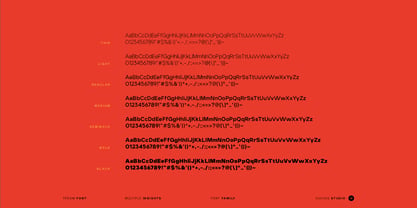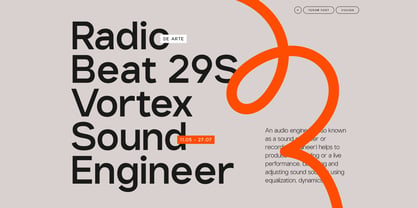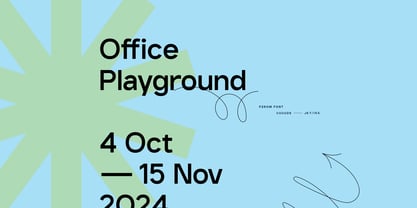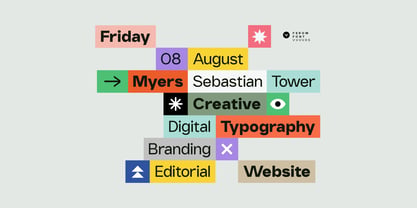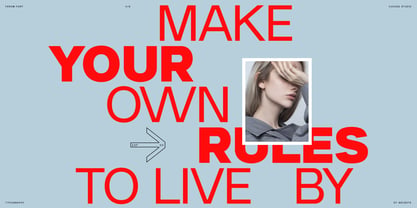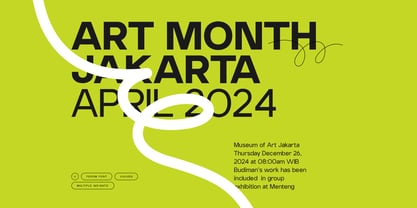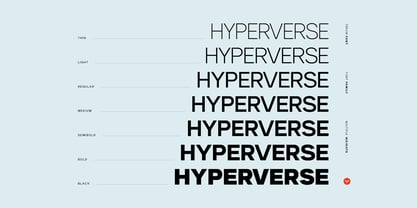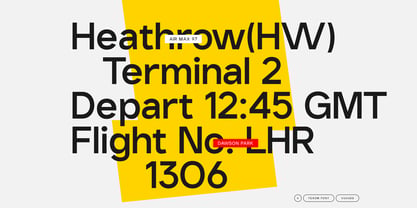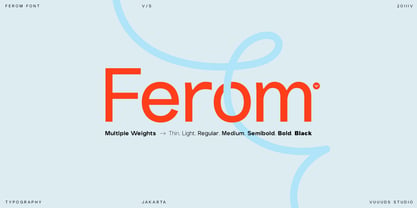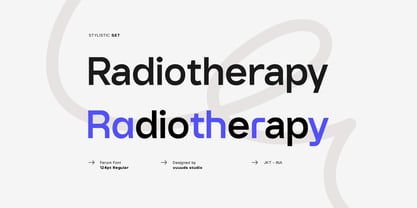
Ferom
by vuuuds
The Ferom Font Family was designed by Agung Syaifudin and published by vuuuds. Ferom contains 7 styles and family package options. More about this family
Looking for that one "workhorse" font that looks flawless anywhere? Ferom is your new go-to. It is a contemporary sans serif that masterfully balances clean geometric lines with a warm, modern aesthetic.
Boasting 7 distinct weights, this font family is a chameleon. Use the lighter weights for a chic, high-fashion, minimalist vibe, or crank it up to the heavier weights for jaw-dropping headlines and posters that refuse to be ignored. From digital screens to large-scale print, its legibility and style remain unmatched. Perfect for Corporate Web, Print, Logo, Branding and many more...
Designers: Agung Syaifudin
Foundry: vuuuds
vuuuds studio is a typeface design studio founded by Agung Syaifudin. This studio was founded in 2015 in the city of Malang, Indonesia.We like to experiment with fonts so that each font we have has a unique and fresh personality.Our focus is on creating fonts with unique styles, so that each of our fonts can stand out when applied to a design.We're always up to date with design so the font experiments we produce are sure to help designers beautify their projects.